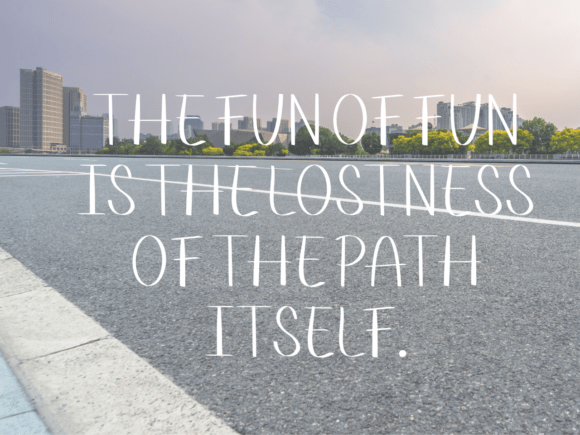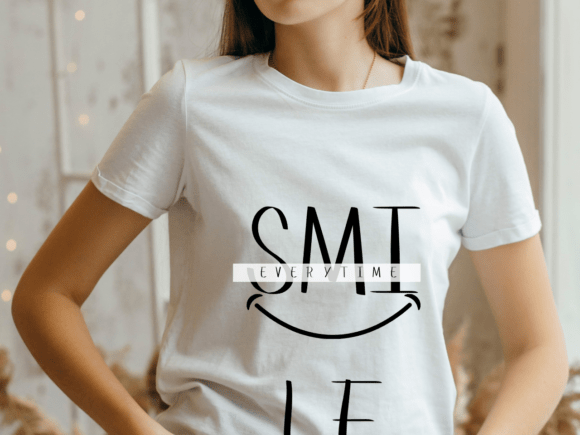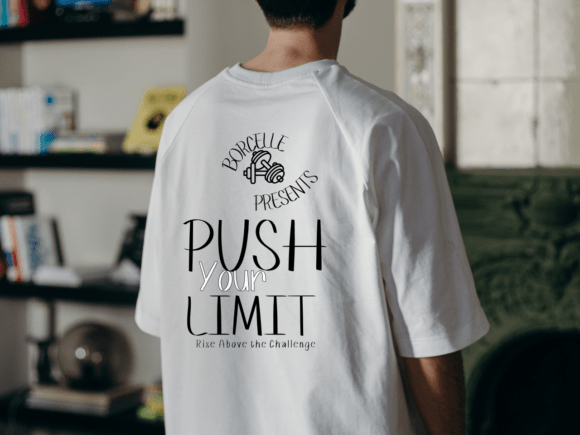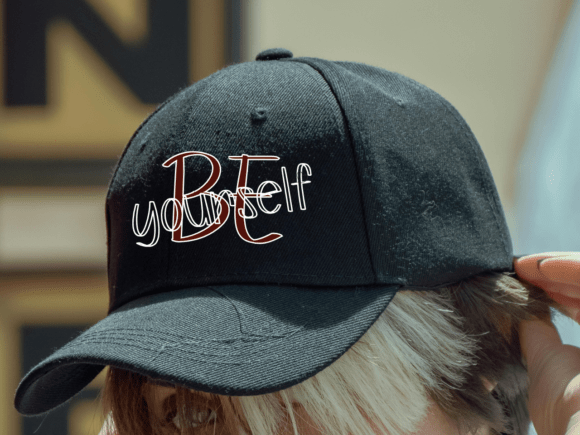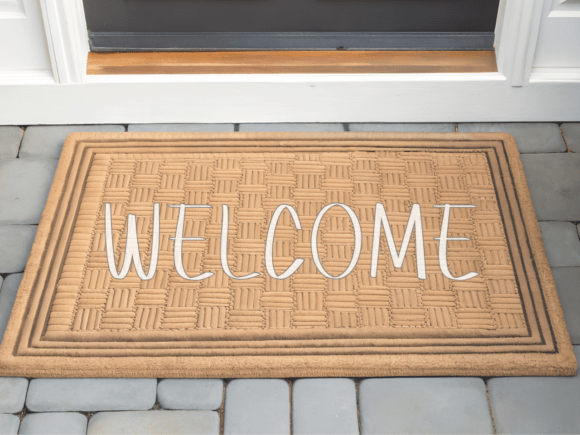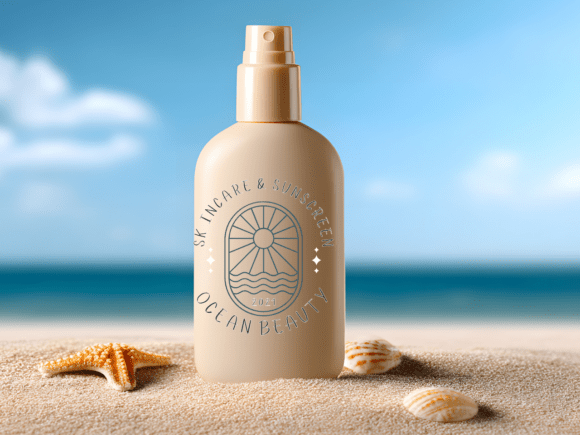
Introduction to Narrowed Font
Have you ever been working on a creative project, pouring your heart and soul into it, and then – BAM! – the perfect font strikes, elevating your design from good to great? That’s exactly what happens when you discover the charming Narrowed Font. Its whimsical, hand-drawn style is a breath of fresh air for any design project.
Whether you’re a seasoned designer or just starting out, the Narrowed Font is a valuable resource to have in your toolkit. With its high-quality, transparent background, it’s perfect for adding a touch of personality to your work. From playful designs to children’s projects, this font is sure to bring a smile to your face and a dash of creativity to your layout.
Narrowed Font: Key Features
- High-quality, free font perfect for any creative project
- Narrowed Font offers a transparent background, making it ideal for overlaying on images
- Narrowed Font is designed as a versatile design resource, suitable for a wide range of applications
- Unique characteristics include a sleek, modern aesthetic and precise letterforms
Honest Review: Narrowed Font
I recently had the chance to work with the Narrowed Font on a creative project and I must say it was a pleasant experience. The font is a great addition to any design resource, providing a unique and elegant touch to the layout.
What works well with the Narrowed Font is its versatility. It can be used for both title and body text, making it a great choice for designers who want a consistent look across their design. The high quality of the font is also noticeable, especially when used on a transparent background. It’s a great option for designers who want to create a clean and modern look.
- ✨ Versatile font that can be used for title and body text
- ✨ High quality font that looks great on a transparent background
One limitation of the Narrowed Font is that it may not be suitable for designs that require a bold and playful look. The font is more suited for modern and minimalist designs.
Overall, I was impressed with the Narrowed Font and would definitely consider using it again on future projects. Its high quality and versatility make it a great addition to any design resource.
Narrowed Font
Narrowed Font is a valuable design resource for creative projects, offering a high-quality font that can elevate your designs to the next level. With a transparent background, it’s perfect for overlaying on images or using as a standalone element.
Common Use Cases for Narrowed Font
Narrowed Font is perfect for:
- Creating eye-catching headings and titles.
- Designing social media graphics and ads.
- Adding a touch of elegance to presentations and documents.
Narrowed Font Alternatives
Open Sans is a highly legible and modern sans-serif font. It is a popular choice for digital design projects due to its high quality and versatility. When to use: For digital design projects, such as websites, mobile apps, and social media platforms. How it compares to Narrowed Font: While Narrowed Font has a more condensed feel, Open Sans offers a clean and airy feel, making it suitable for a wide range of creative projects.
Lato is a elegant sans-serif font with a transparent background, making it perfect for use on websites and digital products. It is a free download and a great resource for designers. When to use: For design projects that require a touch of sophistication and elegance. How it compares to Narrowed Font: Lato has a more refined and sophisticated feel compared to Narrowed Font, making it suitable for high-end creative projects.
Montserrat is a geometric sans-serif font that is highly versatile and suitable for a wide range of design projects. It is a free download and a great resource for designers. When to use: For design projects that require a clean and modern feel. How it compares to Narrowed Font: Montserrat has a more condensed feel compared to Narrowed Font, making it suitable for use in digital design projects where space is limited.